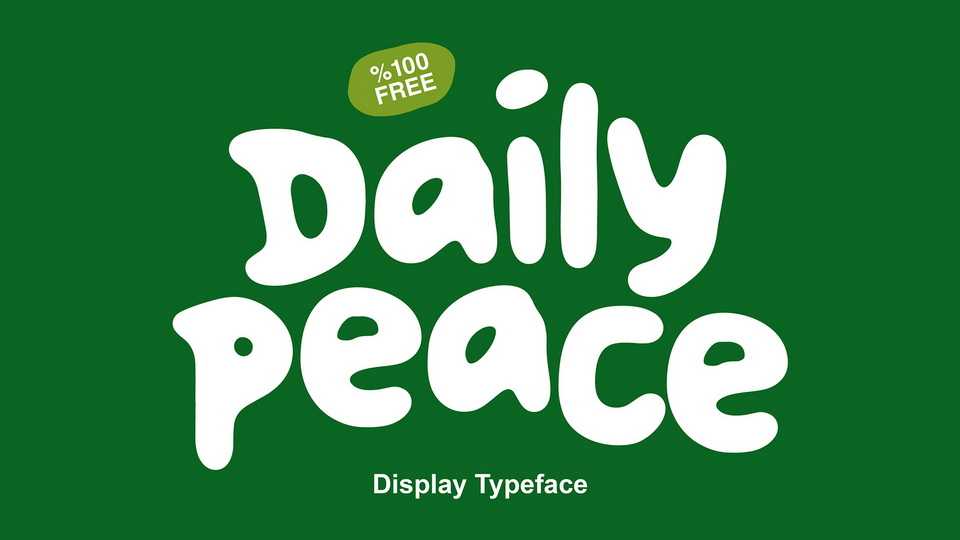
Download Daily Peace font, an experimental handwritten typeface filled with a cheerful and natural vibe. Add a playful and quirky touch to your designs with Daily Peace font.
Designer: Hasteric Studios